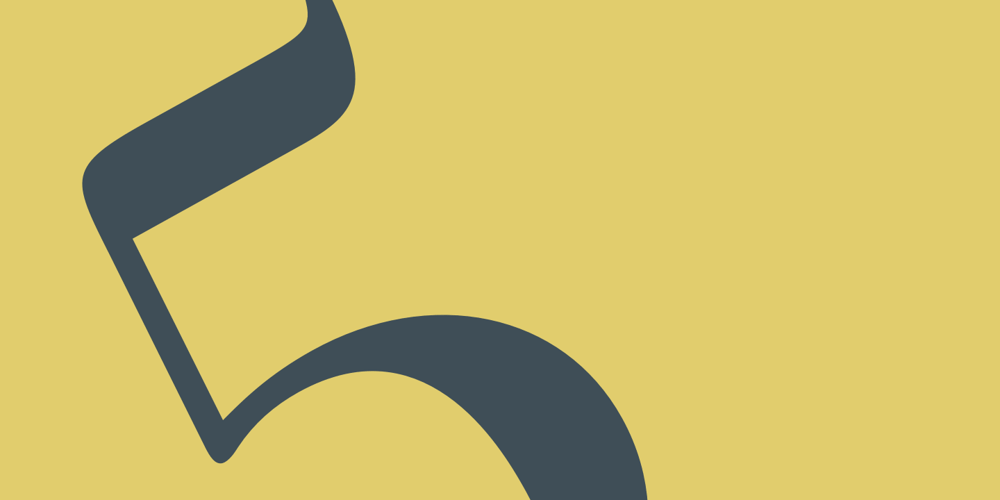
Monotype Bodoni Font Family was designed by Giambattista Bodoni, Monotype Design Studio and published by Monotype. Monotype Bodoni contains 12 styles and family package options. Bodoni expresses the beginning of the Industrial Revolution; its serifs are flat, think and unbracketed, while the stress is always on the mathematically vertical strokes. Bodoni believed in plenty of white space and therefore descenders are long. The M is rather narrow; in the Q the tail at first descends vertically and the R has a curled tail. The italic, like most continental modern faces, has roman serifs.Monotype Bodoni provides a clear-cut effect due to its simplicity. It reproduces well, particularly in sizes over 12pt. This font is slightly darker than Bauer Bodoni. The contrast makes Monotype Bodoni appear more condensed.